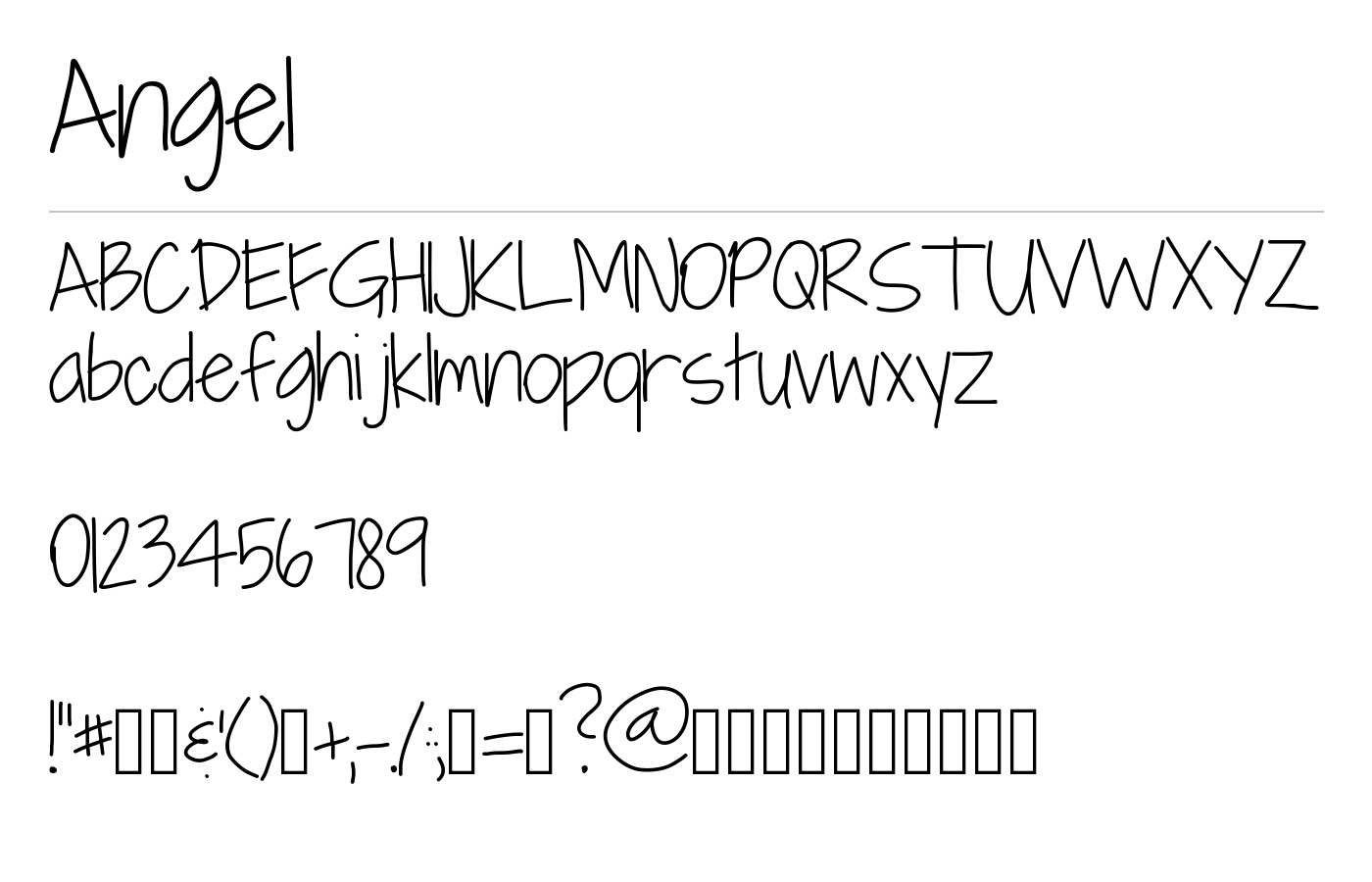
Angel Font is a casual, handwritten sans serif typeface with a light, airy feel and tall, narrow letterforms. Its smooth, playful strokes and informal style make it perfect for creative projects, children's designs, or any context where a friendly, approachable look is desired. This font works well in headlines, invitations, and branding that seeks to convey warmth and personality.
Angel Font
About Angel Font